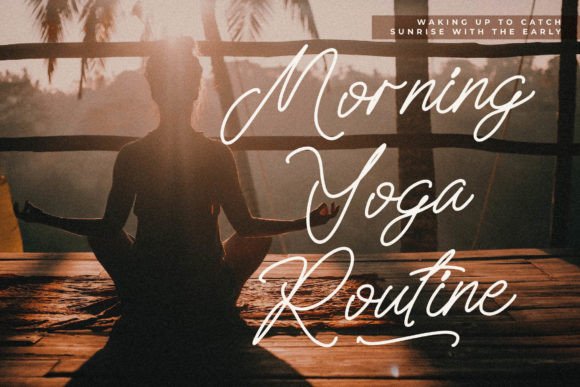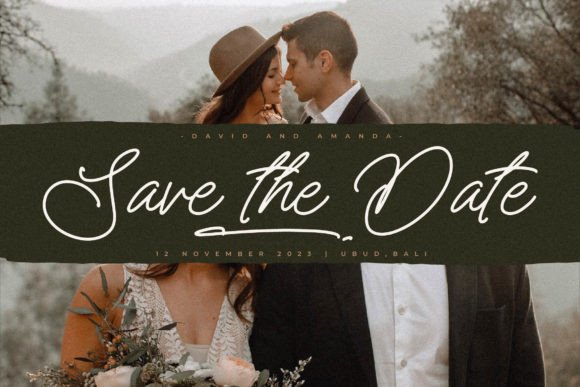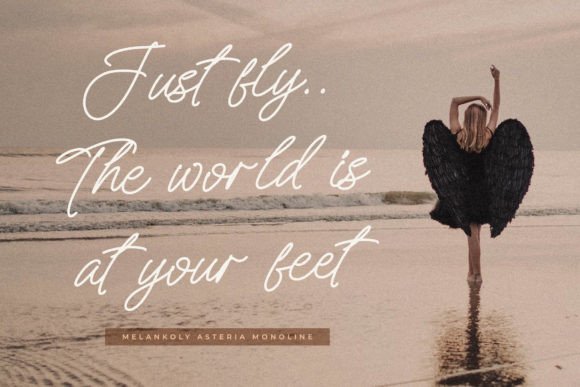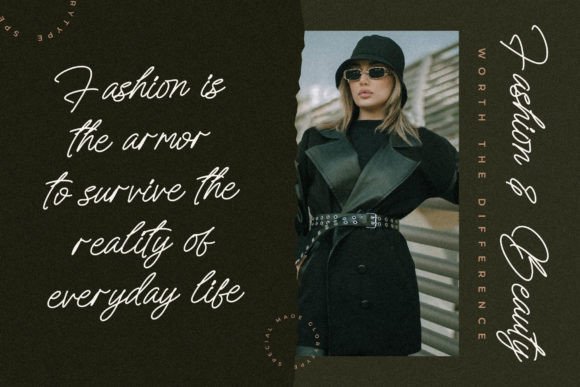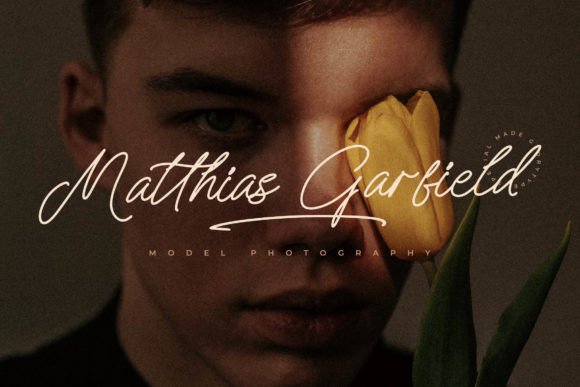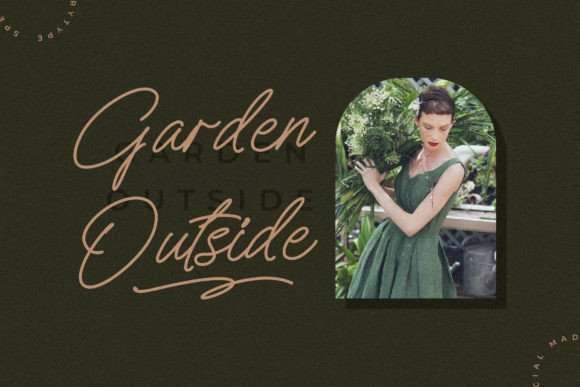
Introduction to Melankoly Asteria Font
As a designer, you’ve probably had that moment when you see a beautiful script and just can’t help but be inspired. The Melankoly Asteria Font is one of those designs that will transport you to a world of elegance and sophistication. With its monoline handwritten style, this font is perfect for adding a touch of creativity to any project.
Whether you’re working on a branding project, designing homeware, or creating a product packaging, the Melankoly Asteria Font is a valuable addition to your design resource library. Its high quality and versatility make it an ideal choice for designers who want to add a unique touch to their creative projects. Plus, with a transparent background option, you can easily use it as a watermark or overlay in your designs.
Key Features of Melankoly Asteria Font
- High-quality, elegant design perfect for creative projects and artistic endeavors.
- Designed with a unique, hand-painted aesthetic, adding a touch of personality to any project.
- Perfect for use in creative projects such as book covers, posters, and digital art, where a touch of elegance and sophistication is desired.
Honest Review: Melankoly Asteria Font
As a designer, I’m always on the lookout for high-quality design resources to elevate my creative projects. The Melankoly Asteria Font caught my eye, and I decided to give it a try.
- Beautiful, elegant script design that’s perfect for wedding invitations, quotes, or any other creative project that needs a touch of sophistication.
- Only available in a few font weights, which may limit its usability for complex design projects.
- No bold or italic variations, which could be a drawback for designers who prefer a more extensive font library.
Overall, the Melankoly Asteria Font is a solid addition to any designer’s design resource library. While it may have some limitations, its high quality and elegant design make it a great choice for creative projects that require a touch of sophistication.
Tips for Getting the Most Out of the Melankoly Asteria Font
To get the most out of the Melankoly Asteria Font, use it in conjunction with other design resources, such as graphics and images. Experiment with different font sizes, colors, and styles to create unique and eye-catching designs. The font is also ideal for creating a cohesive brand identity.
The Melankoly Asteria Font is ideal for a wide range of design projects, including logos, business cards, social media graphics, brochures, magazines, posters, presentations, reports, and documents. The font’s transparent background and high-quality design make it perfect for creative projects and business applications.